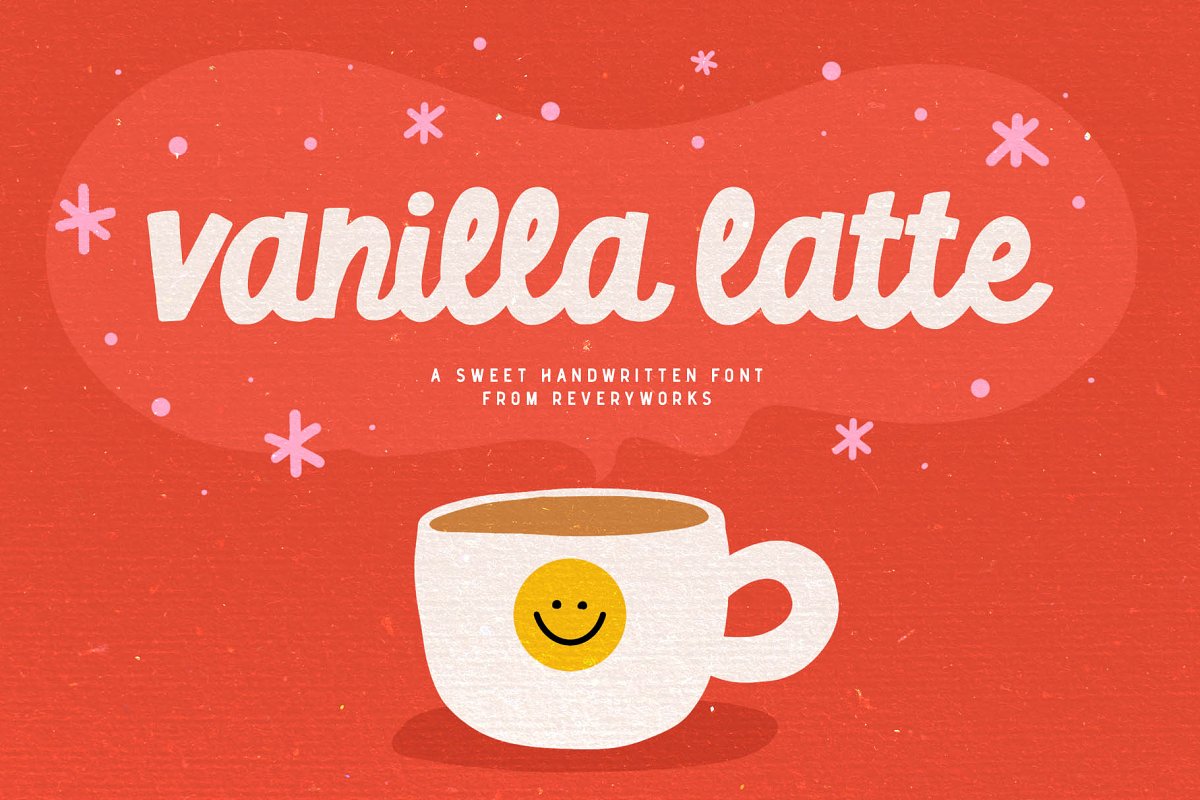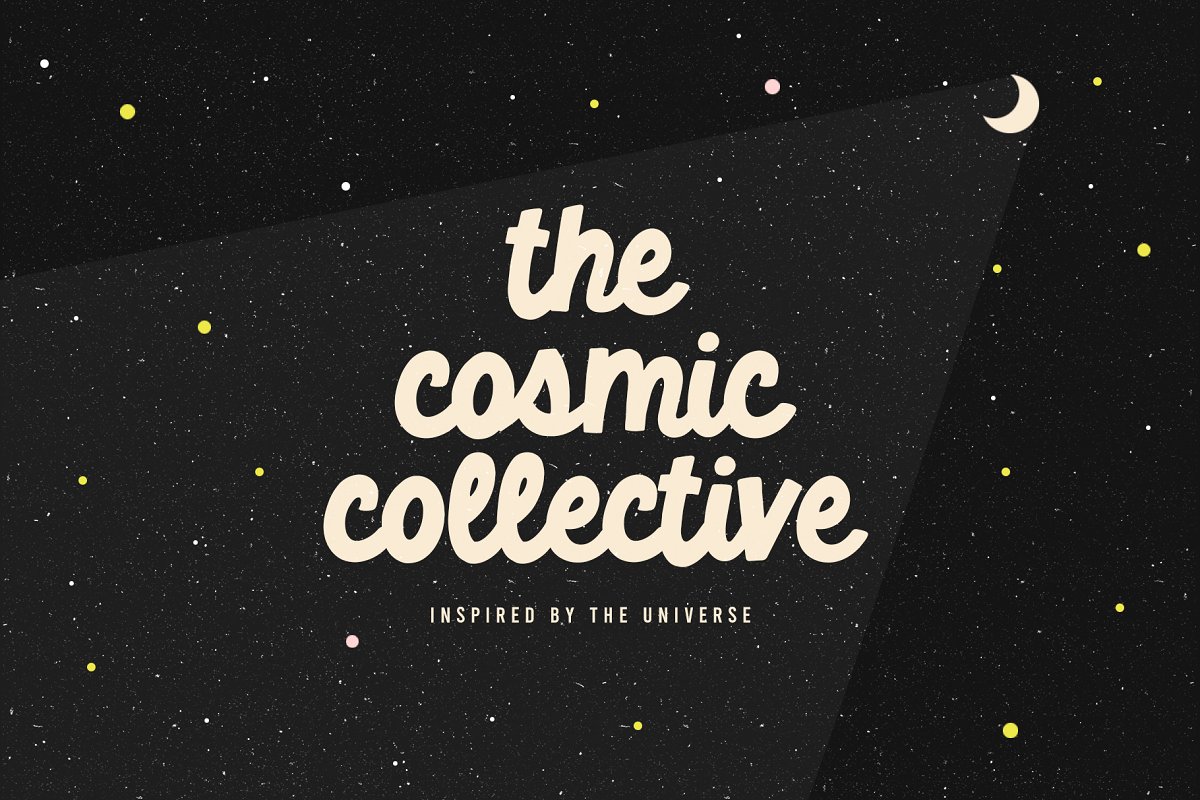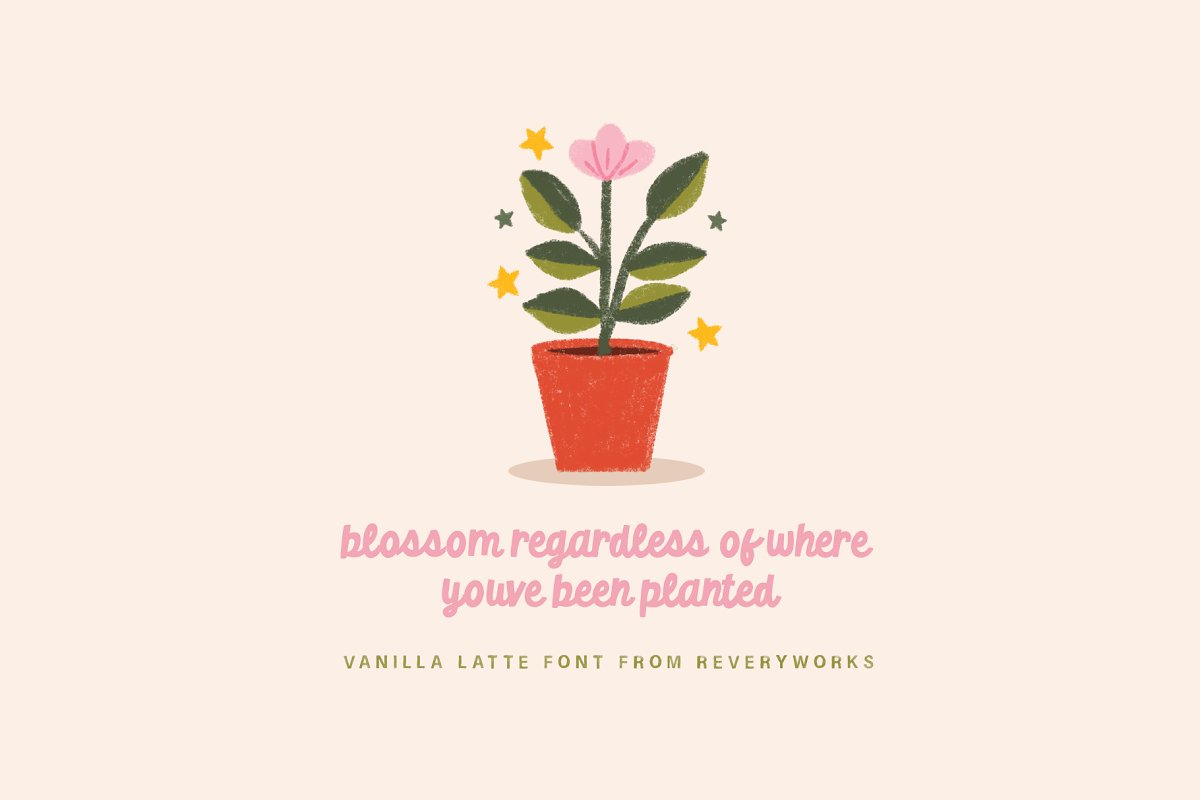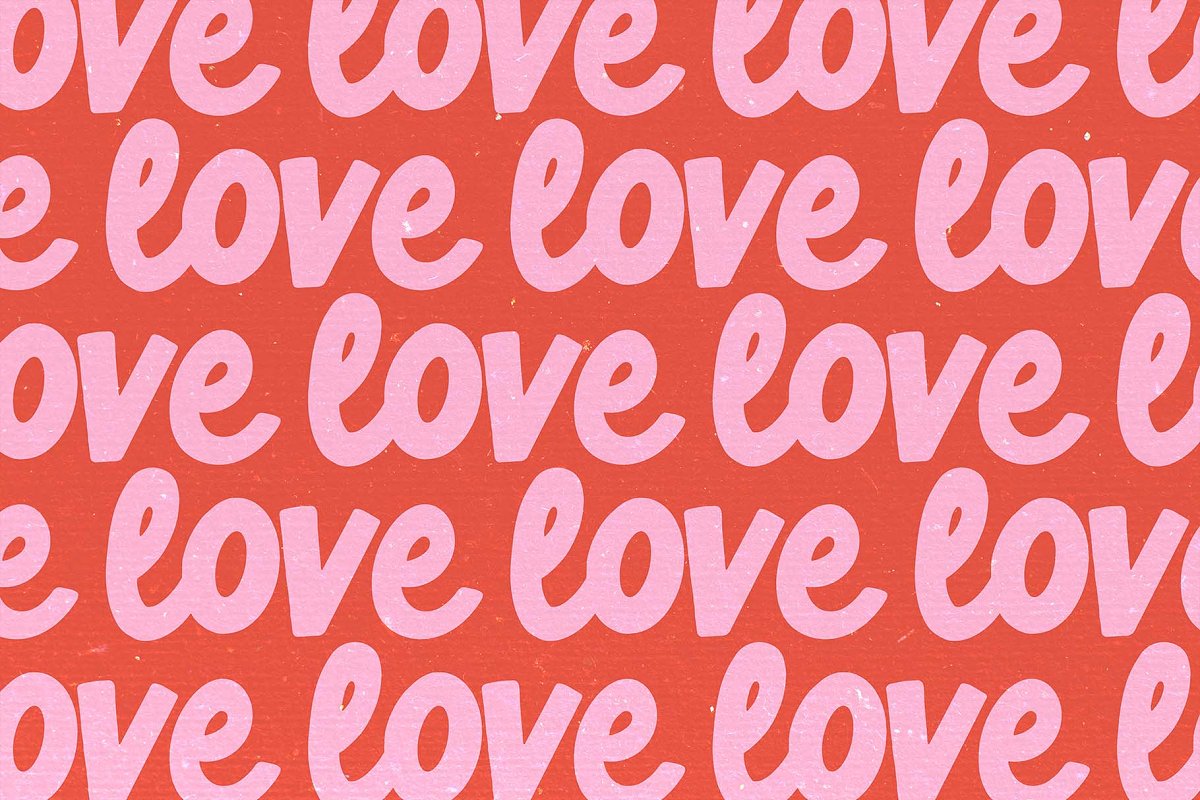
About the Vanilla Latte Script
Introducing the sweet little font, Vanilla Latte! A fun connected script style font, designed to be playful yet bold, It’s perfect for creating quotes, greeting cards, stickers, bubbly logos and branding (hello small business owners! :)Play around by layering the font for a 3D look, or add some detail by outlining the text, You can also have fun trying out different trendy color combinations!This font includes Multi-lingual support